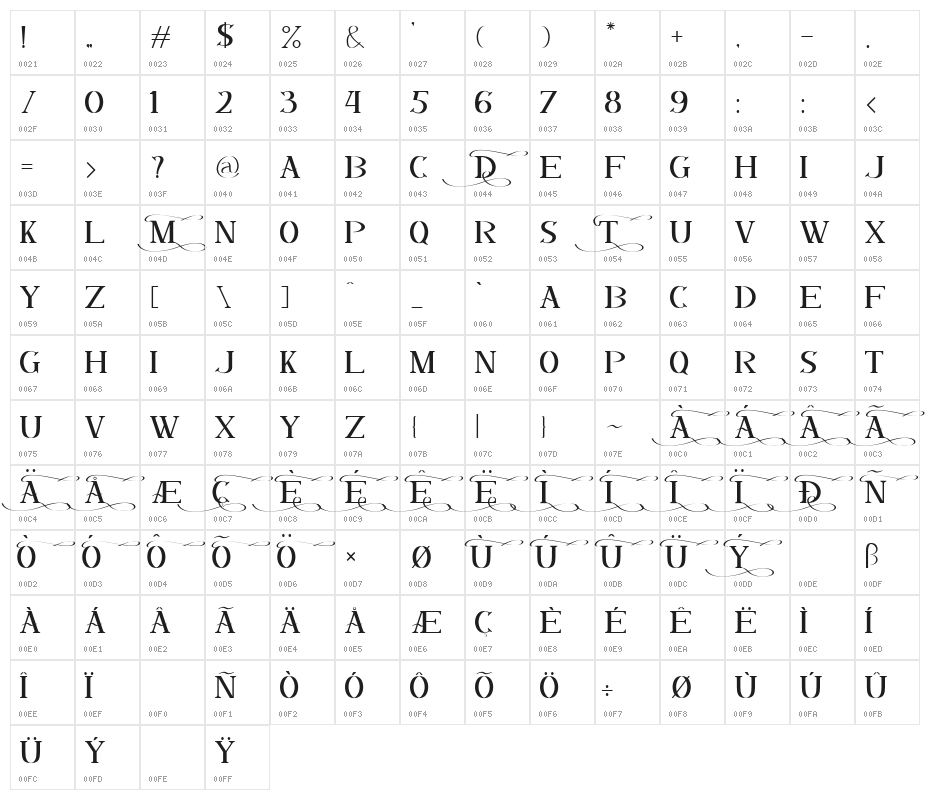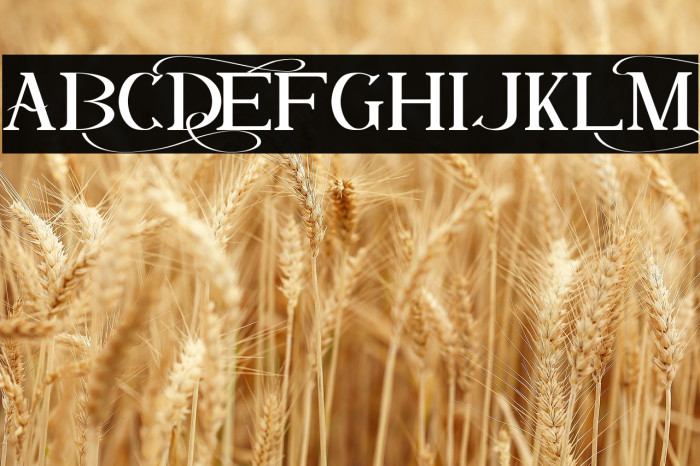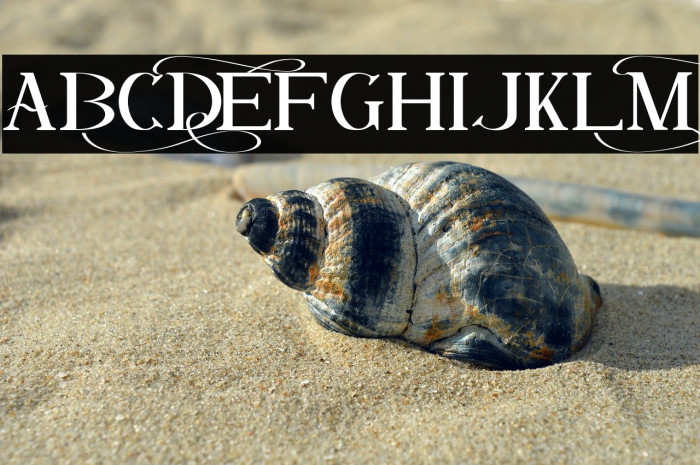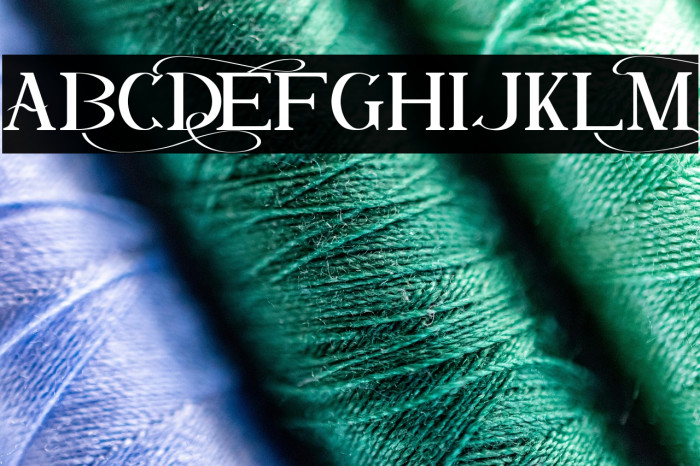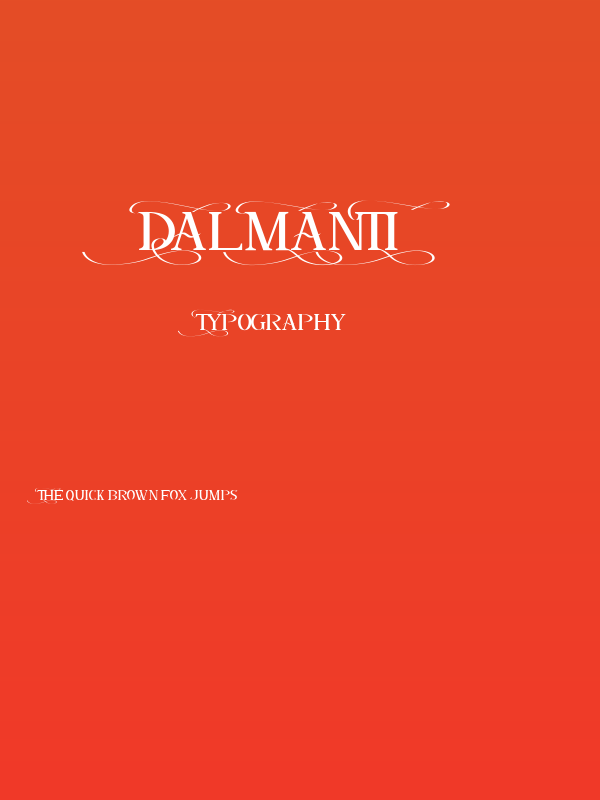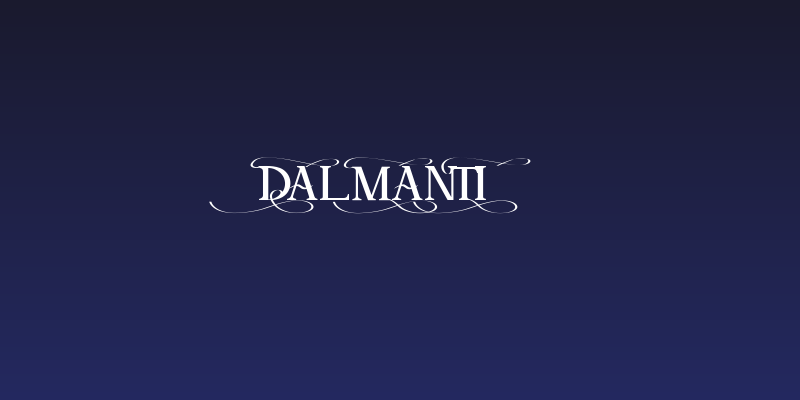
DALMANTI Font
DALMANTI Description
This font features a classic serif style with elegant flourishes on certain uppercase letters, adding a touch of sophistication and flair. The characters are well-defined with a balanced weight, providing a harmonious appearance. The numerals and special characters maintain the same classic aesthetic, ensuring consistency throughout. The overall design is reminiscent of traditional typefaces, yet it incorporates modern elements through its decorative swashes, making it suitable for both contemporary and vintage-themed projects.